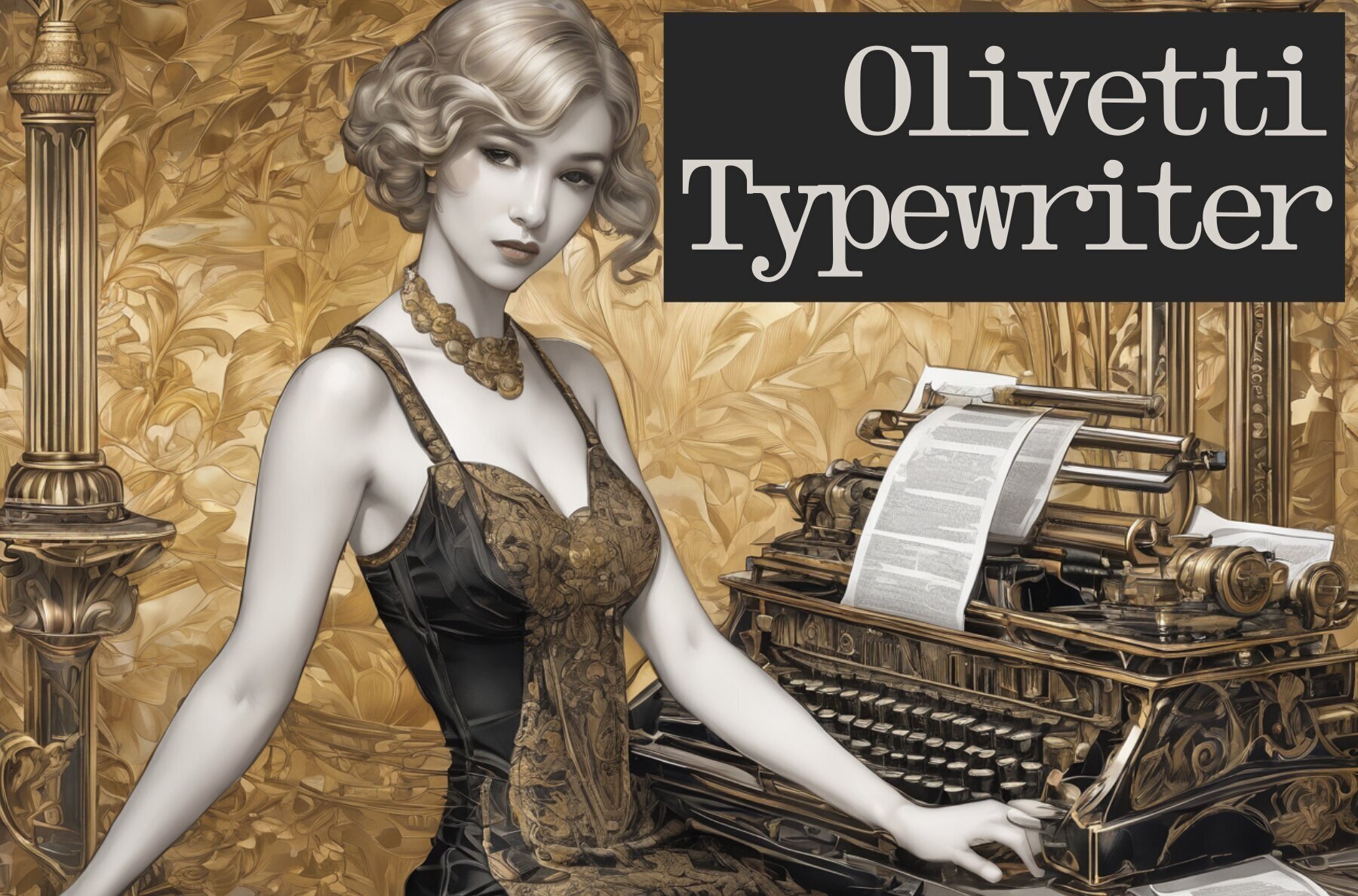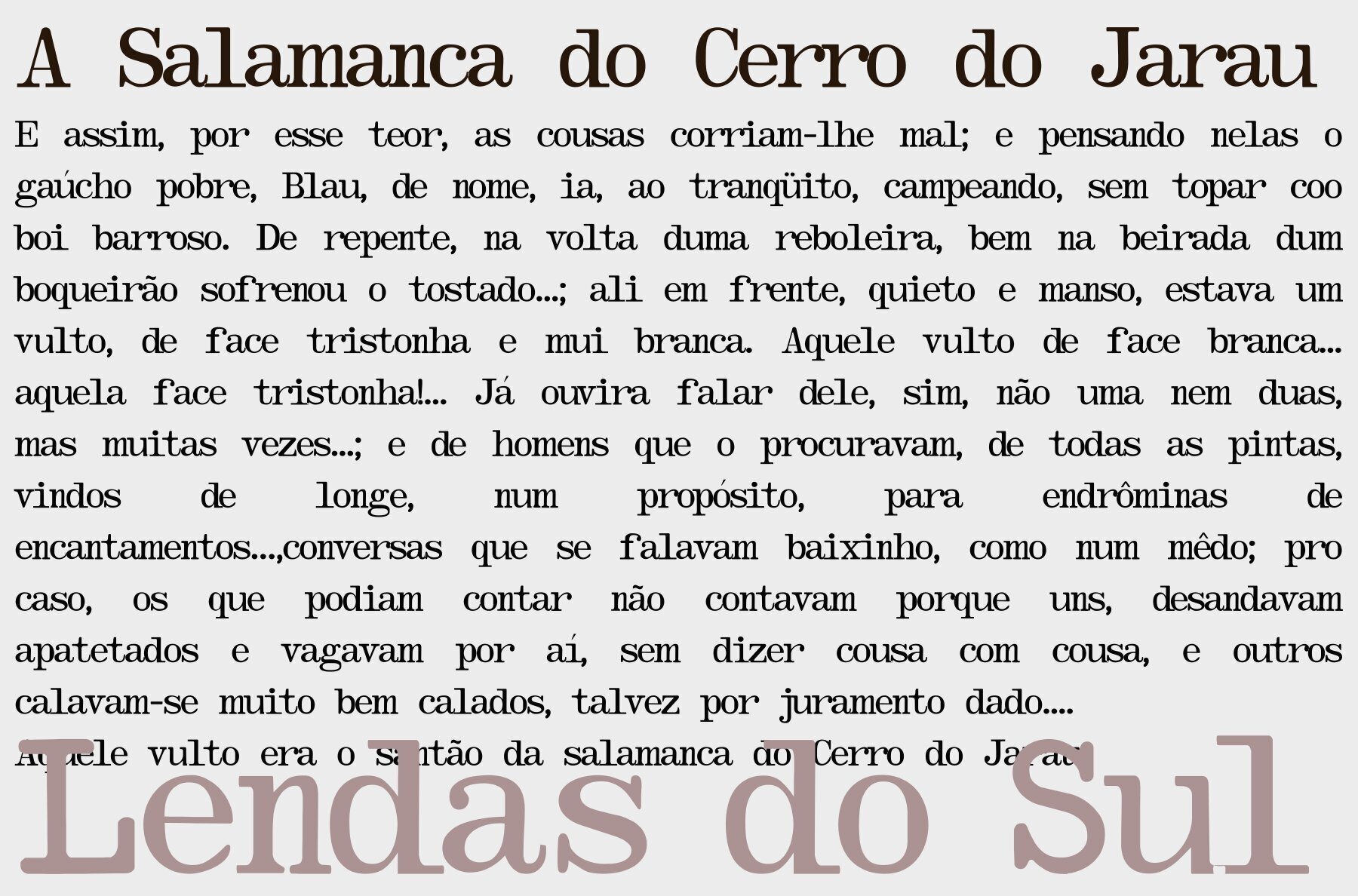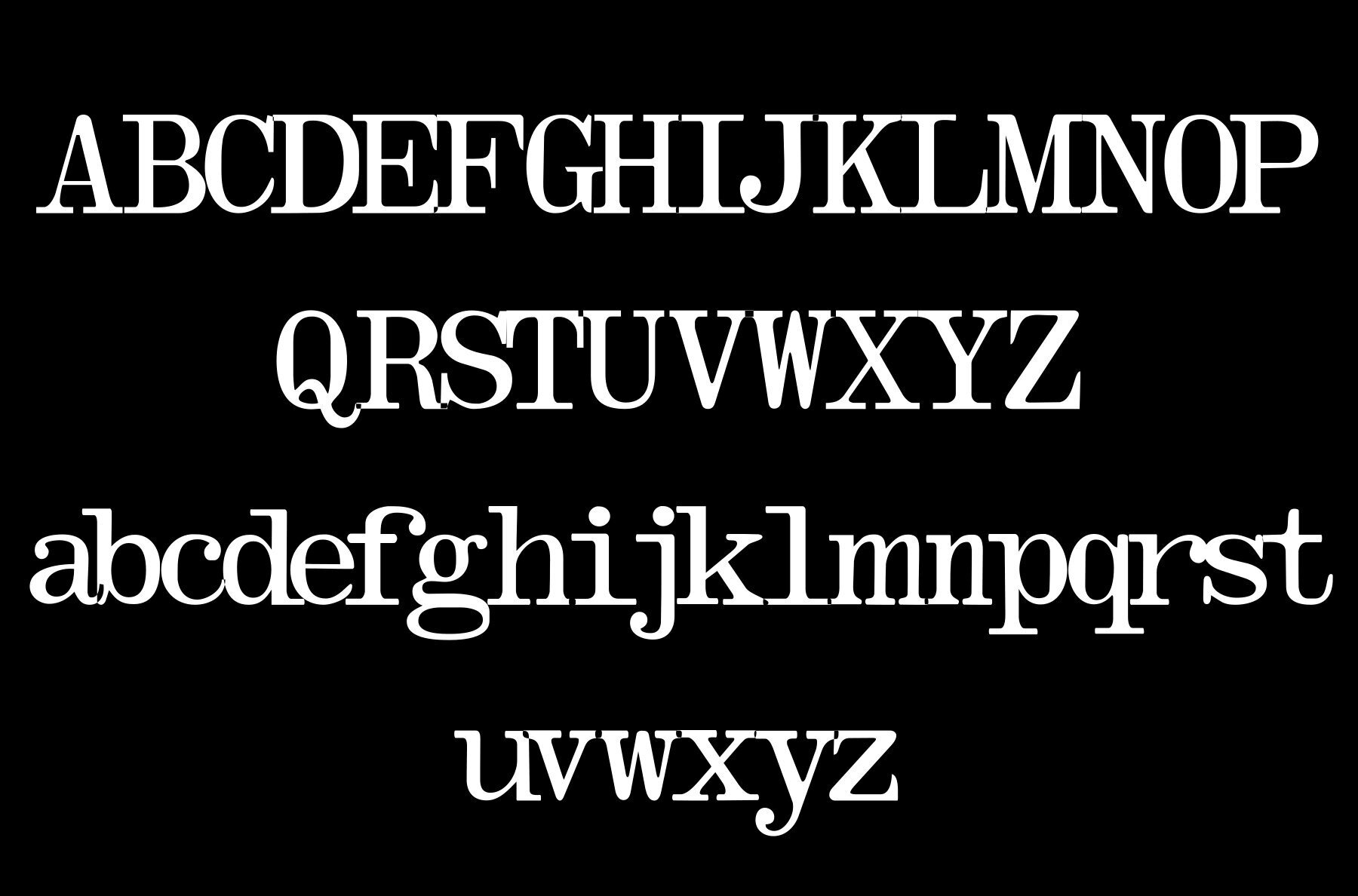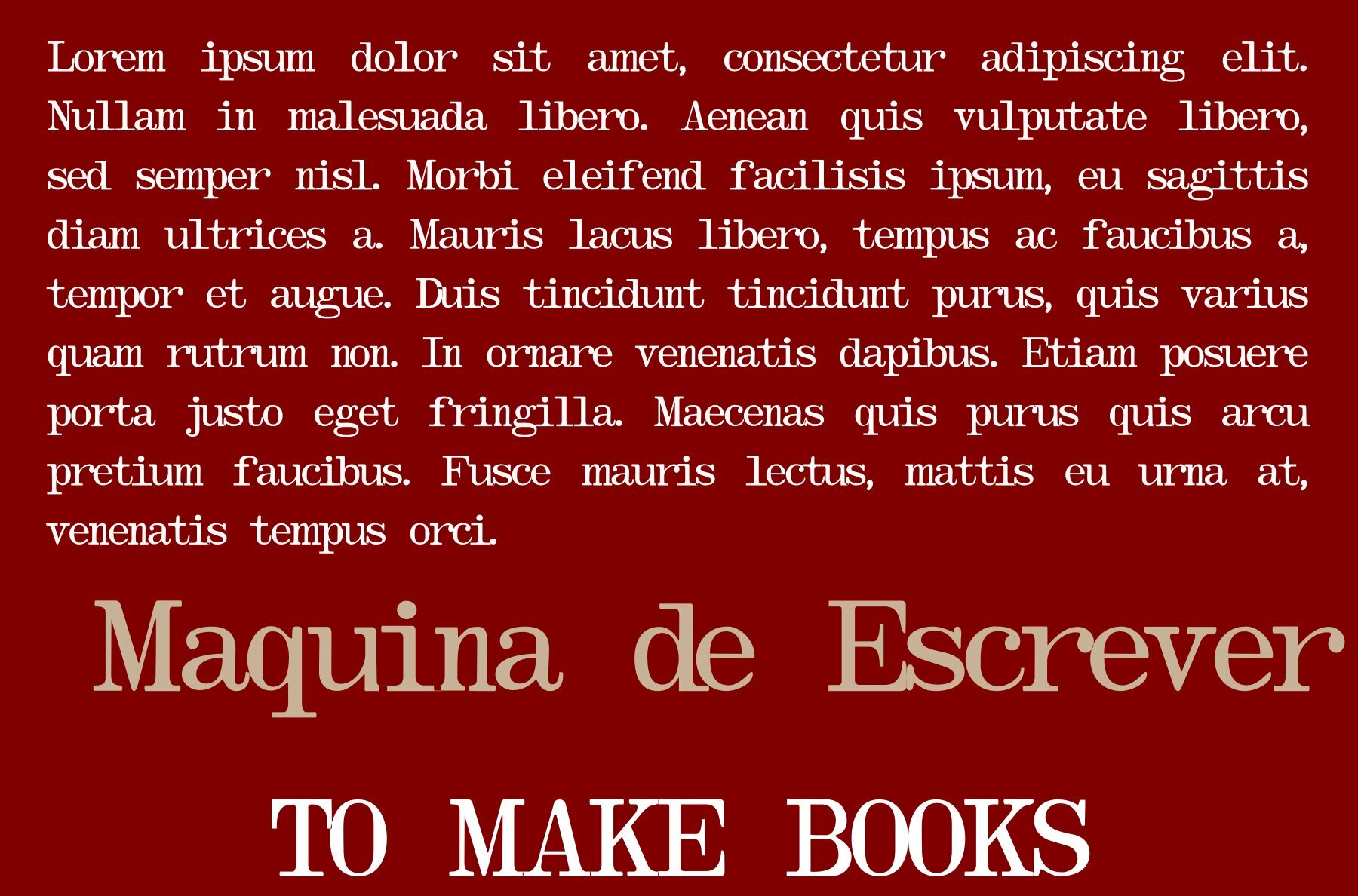
Olivetti Typewriter Font
The Olivetti Typewriter font family brings the nostalgic charm of traditional typewriter aesthetics, combined with the elegance of serif design. Published by Intellecta Design, this collection features five distinct styles, offering versatility for various design projects.Olivetti Typewriter: Classic Serif Typeface by Intellecta Design
Intellecta Design is a Brazilian typefoundry interested in typographical research and revivals of all forms of ancient typefaces and handwriting styles. It searches historical churches, museums and similar institutions to develop handwriting and other fonts from old documents. This kind of research is not comm...